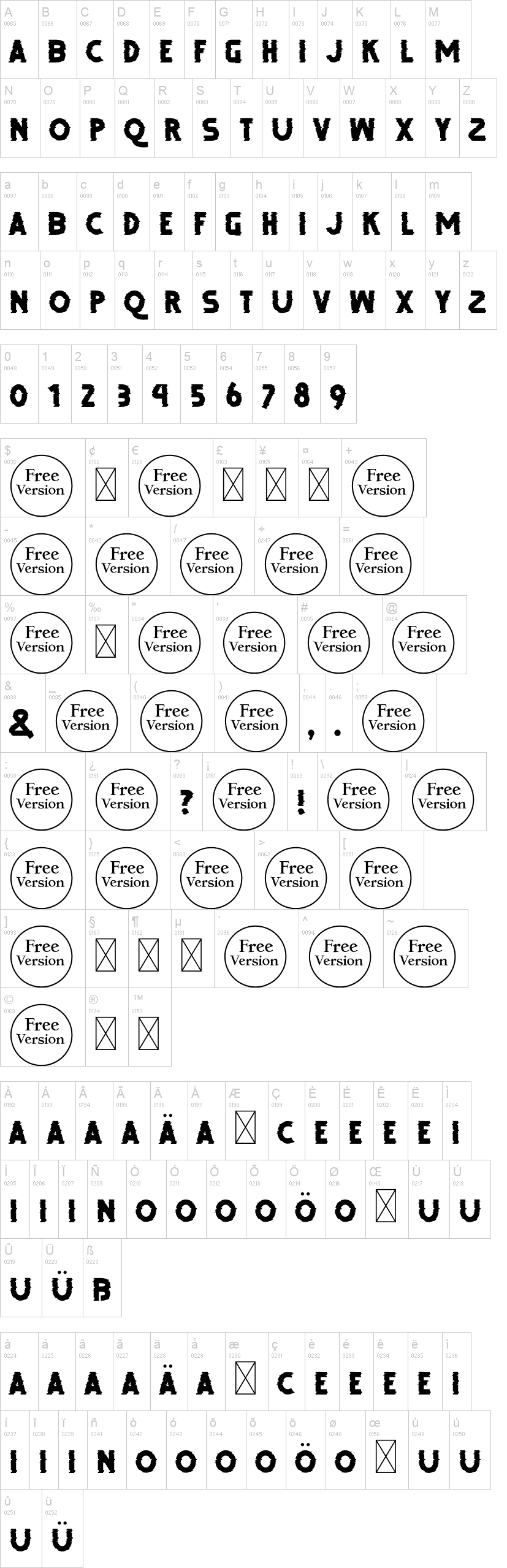
Note of the authorDebug is a great all-caps display font multilingual letters, numbers and punctuation. Perfect for headlines of all size, as well as for blocks of text that have both maximum and minimum variations. Wether it's for games, movies, flyers, posters and much more!